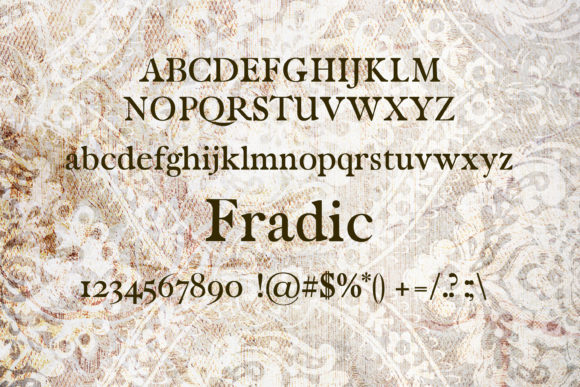
The Fradic Font: A Timeless Choice for Creative Projects
I’ll never forget the struggle I faced while working on a design project for a client who wanted a classic, yet personalized look. I had to try out numerous fonts before I stumbled upon Fradic – a beautiful serif font that instantly caught my attention. In this article, I’ll share my experience with Fradic, its features, and how to make the most out of it in various design platforms.
An Honest Review of Fradic Font
Fradic is a classic serif font that boasts a simple, easy-to-read style, making it perfect for any design project that requires a personalized appearance. Here’s what I love about it:
- ✨ Timeless look: Fradic has a traditional serif style that never goes out of fashion.
- ✅ Easy to read: The font’s simplicity ensures that your text is clear and legible, even at smaller sizes.
- 💡 Versatile: Fradic can be used for a wide range of projects, from branding and advertising to crafting and hobbyist designs.
However, there are a few quirks to be aware of:
- 🤔 Limited stylistic alternates: While Fradic has a beautiful standard style, it may not offer as many variations as some other fonts.
- ⚠️ Not ideal for very large or very small text: Fradic shines at medium to large sizes, but might not be the best choice for very large headings or very small captions.
The Story Behind Fradic Font
Fradic was designed with the intention of creating a timeless, classic serif font that would cater to designers and crafters looking for a personalized touch. The designer aimed to create a font that would be both elegant and approachable, making it suitable for a wide range of creative projects.
| What is Fradic font best used for? | Fradic is versatile and can be used for various design projects, including branding, advertising, crafting, and hobbyist designs. |
| Is Fradic suitable for body text? | Yes, Fradic is easy to read and can be used for body text, especially at medium to large sizes. |
| Does Fradic support OpenType features? | Yes, Fradic supports OpenType features, allowing you to access additional glyphs and stylistic alternates. |